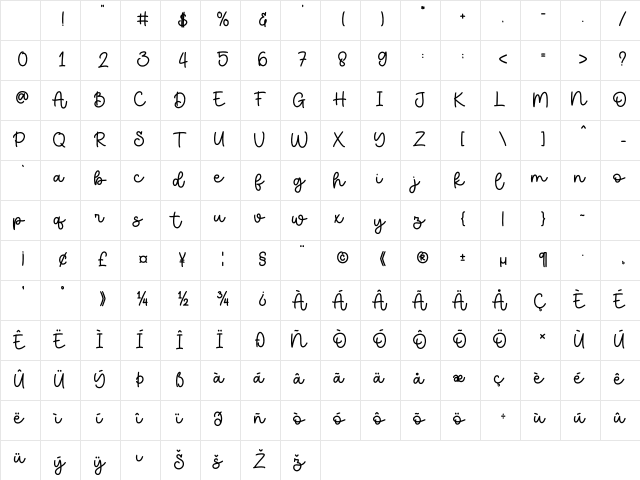
Complete iloveyou Regular glyph index. Displaying only characters natively supported by iloveyou Regular font.
iloveyou is a composed and adaptable typeface that performs quietly and consistently across a wide range of design contexts.
Pro Tip: Use iloveyou in both headline and body roles to test its range before committing to a single application.